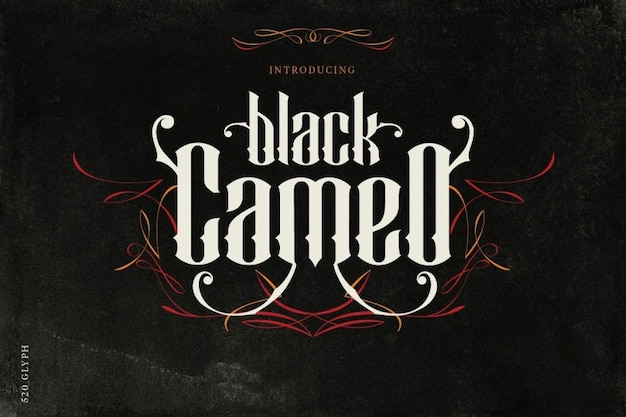
Black Cameo Font
It is the rebel of the font world, merging the dark elegance of Gothic with the rugged flair of the Wild West. Its letters are intricately designed with a touch of mystique, making it perfect for cool and unconventional projects. Whether you're crafting a logo for a hip saloon or designing edgy merchandise, "Black Cameo" adds a dash of cool to your creations.